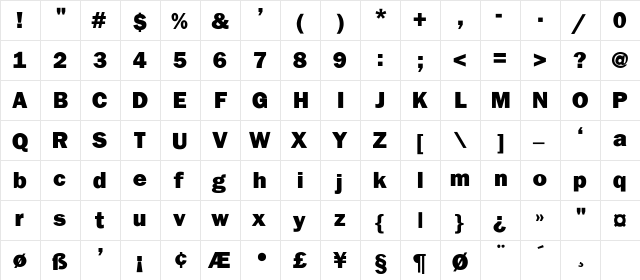
SaintJohn Regular Font Preview
SaintJohn Regular
SaintJohn Regular Font Details
Design Context for SaintJohn Typeface
SaintJohn is a composed and adaptable typeface that performs quietly and consistently across a wide range of design contexts.